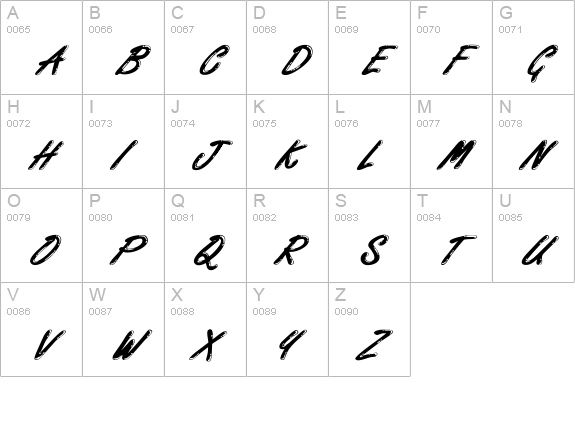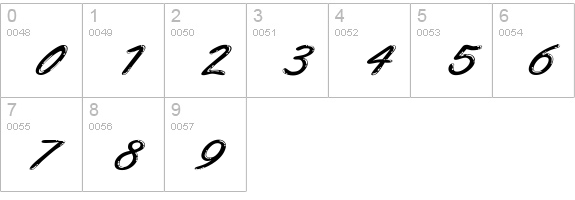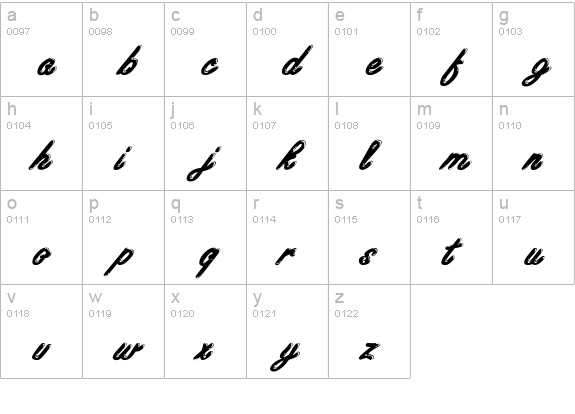
Encino Extended Italic is a distinctive, extended-width, italic variant in the Encino typeface family \xE2\x80\x94 well suited to design and typography projects.
Encino Extended Italic is a sleek and modern font that exudes sophistication and elegance. Its elongated letterforms are gracefully slanted, adding a touch of dynamism to any design project. This font is perfect for conveying a sense of luxury and style, making it ideal for logos, headlines, and other branding materials. What sets Encino Extended Italic apart is not just its striking appearance, but also the fact that it is free to download. You can easily access this exquisite font at FontsMarket.com, where you can enhance your creative projects without any cost. Embrace the beauty and versatility of Encino Extended Italic and elevate your designs with its unique charm and visual impact.